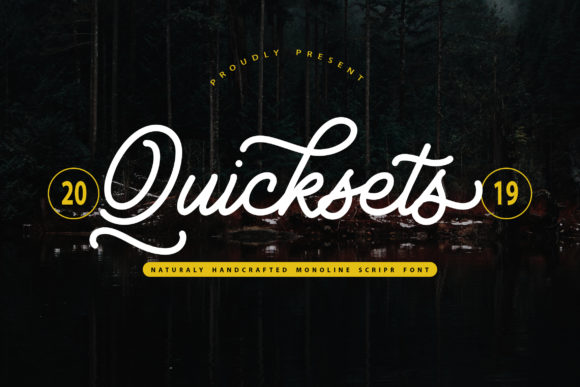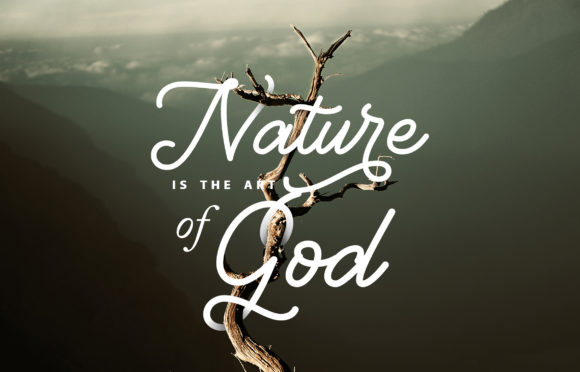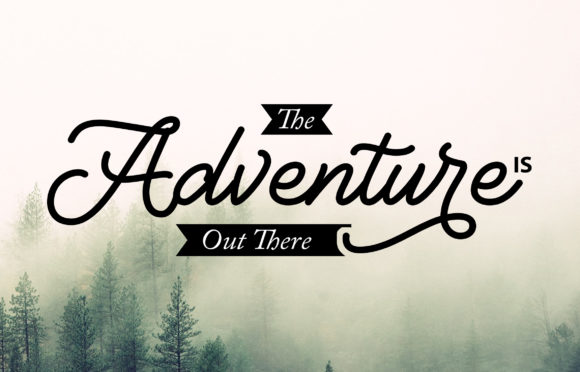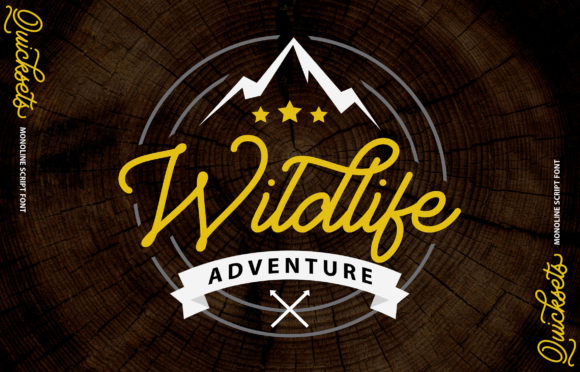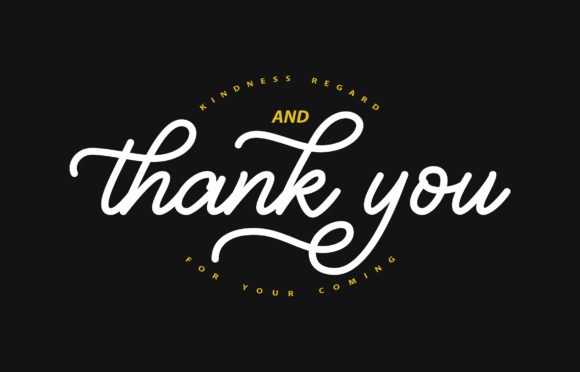
QuickSets Font
About QuickSets Font
QuickSets is a sweet, soft hand-lettered script font. This font is the perfect fit for making original and outstanding designs.